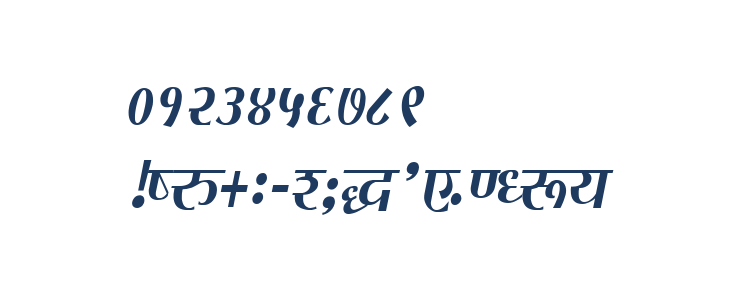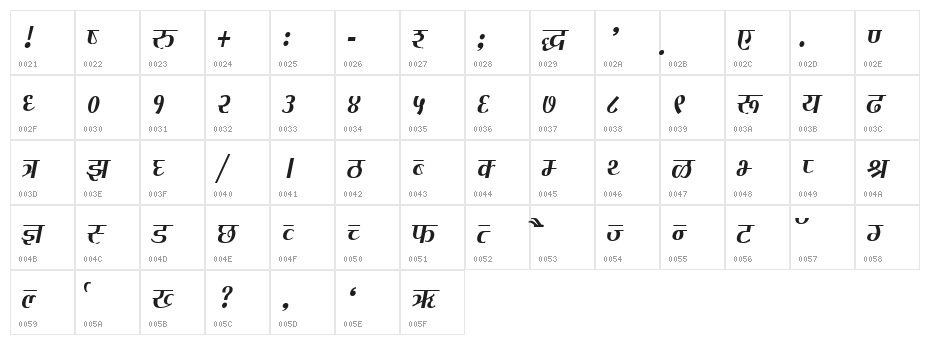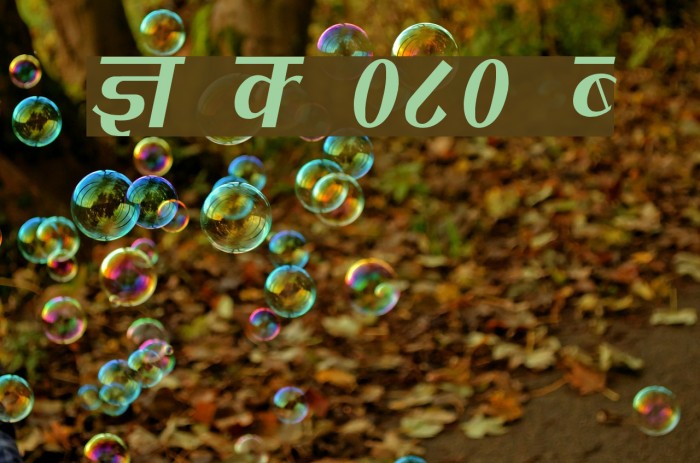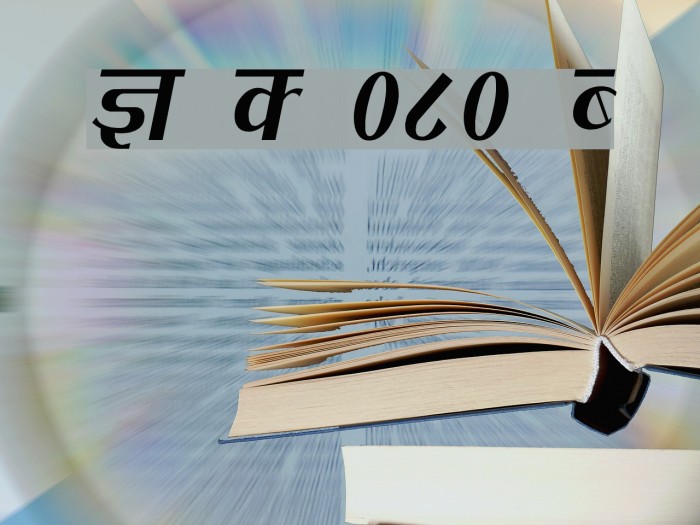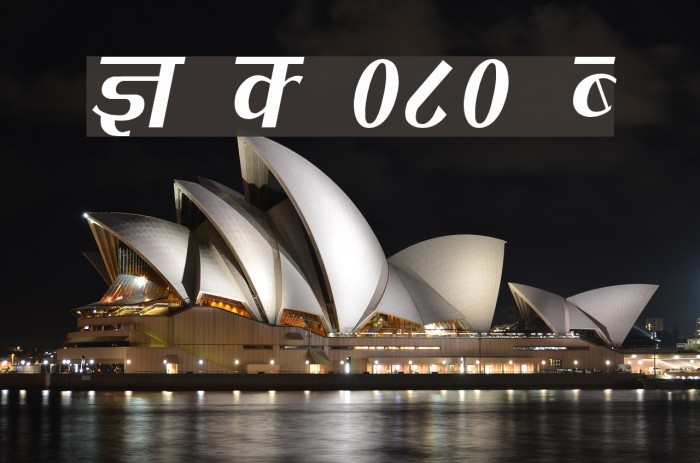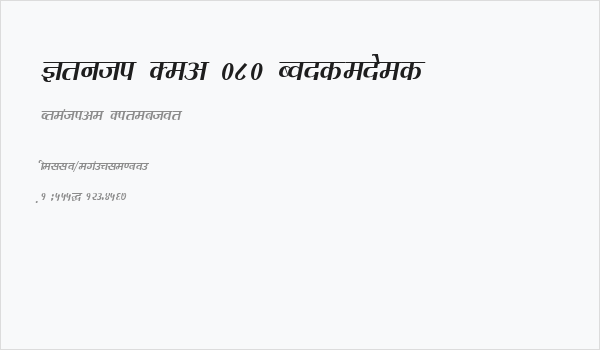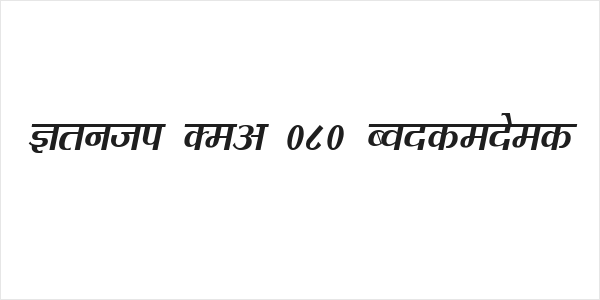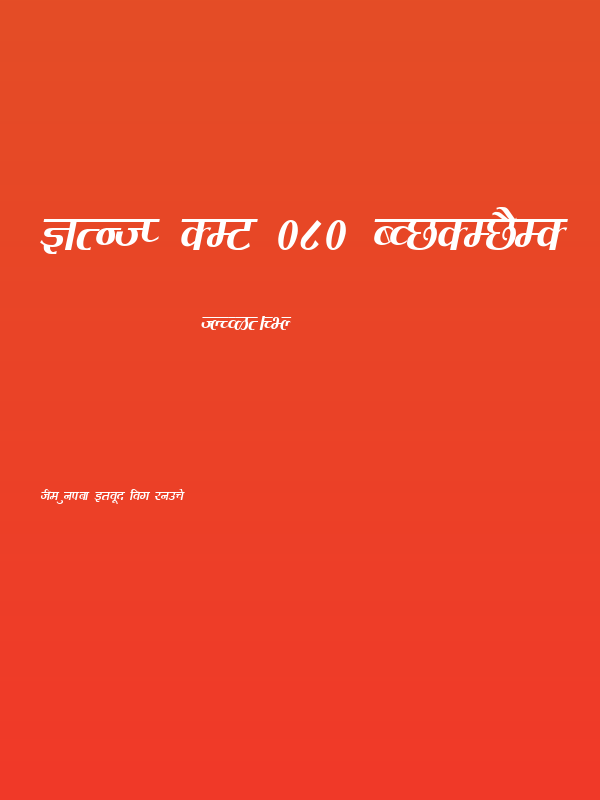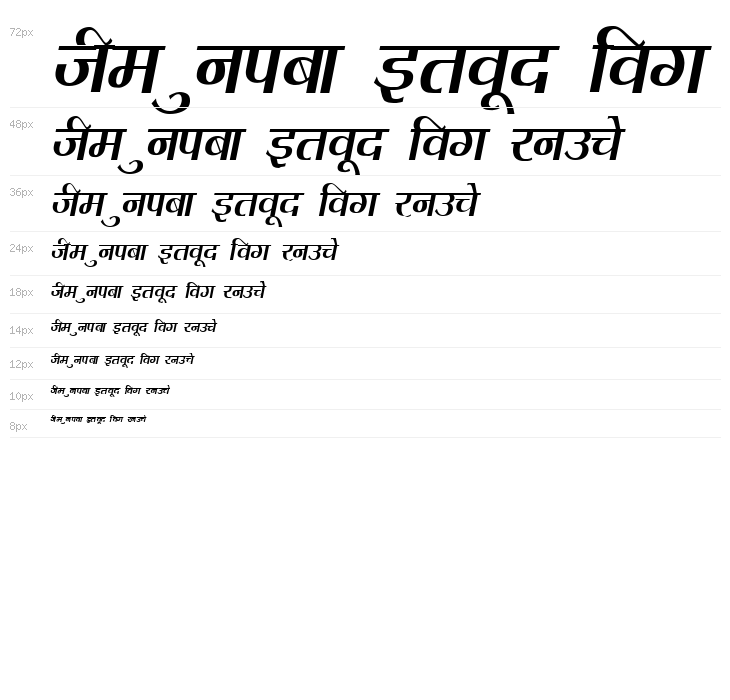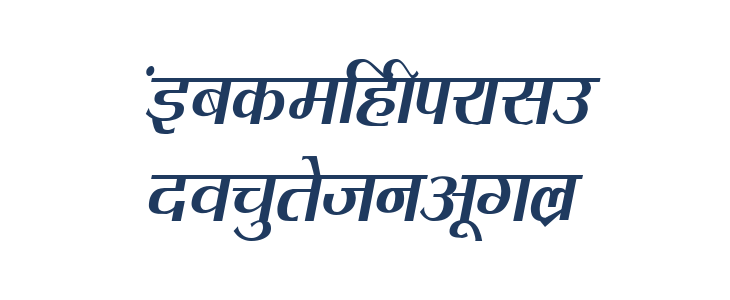
Kruti Dev 080 Condensed Font
Kruti Dev 080 Condensed Description
This font features a distinct and traditional Devanagari script style, characterized by its condensed and bold appearance. The characters are intricately designed with sharp edges and a slight slant, giving them a dynamic and energetic look. The strokes are moderately thick, providing a medium contrast that enhances readability while maintaining a decorative flair. The spacing between characters is tight, which complements the condensed nature of the font, making it suitable for compact text arrangements. Overall, the font exudes a classic yet vibrant aesthetic, ideal for projects that require a touch of cultural authenticity.
| Use Case | Headlines, Signage, Cultural publications |
| Proposed Projects | Ideal for cultural publications, traditional event invitations, and signage that requires a classic Devanagari touch. |